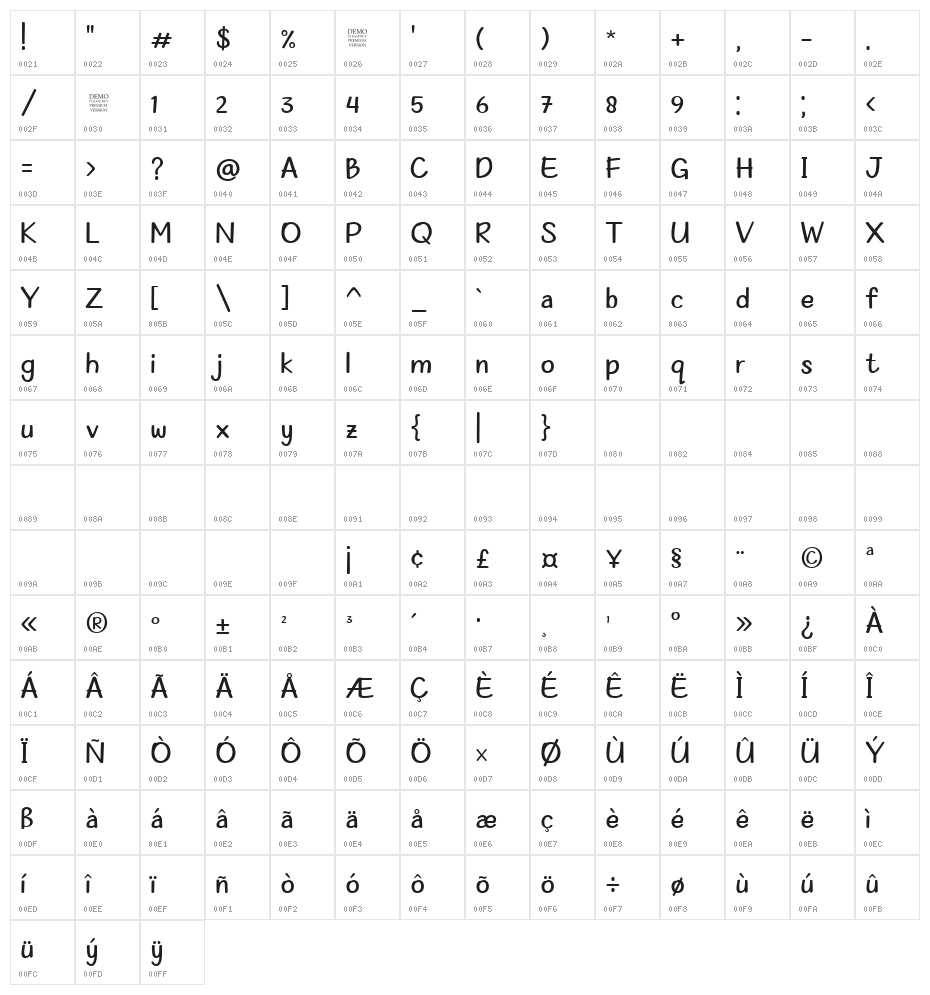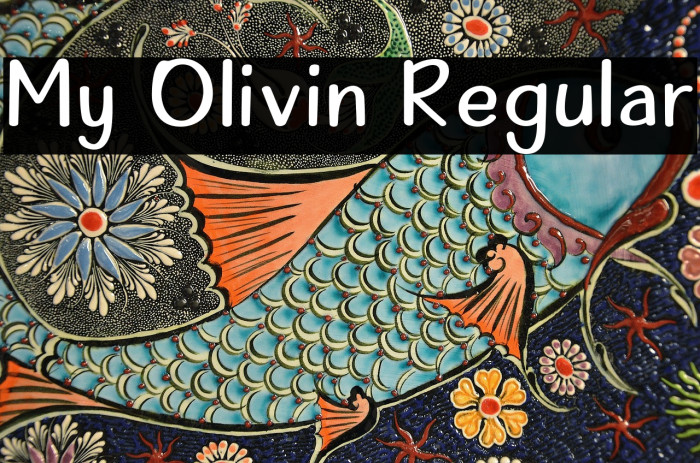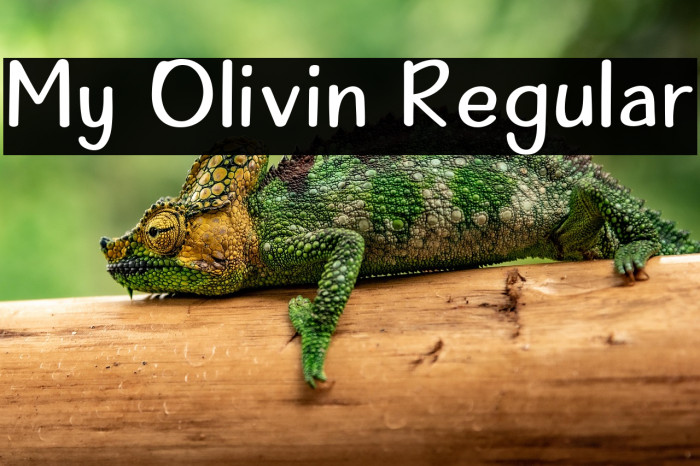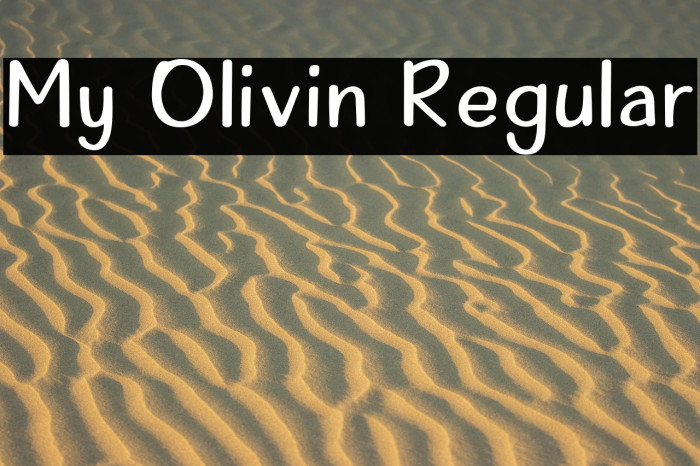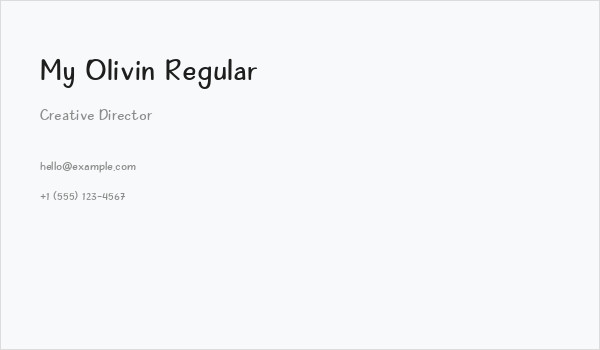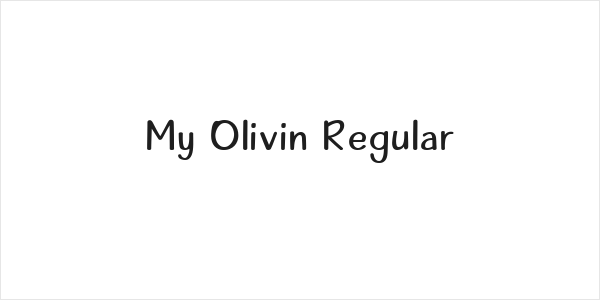
My Olivin Regular Font
My Olivin Regular Description
This font features a playful and casual handwritten style, characterized by smooth, rounded edges and a consistent stroke width. The uppercase letters are bold and slightly wider, giving them a friendly and approachable appearance. Lowercase letters maintain a uniform height, contributing to a cohesive look. The numerals are clear and easy to read, with a slight curve that matches the overall style. Special characters are well-integrated, maintaining the font's playful nature. This font is ideal for projects that require a personal touch, such as invitations, greeting cards, or children's book illustrations.
| Proposed Projects | Ideal for invitations, greeting cards, children's books, and casual branding. |